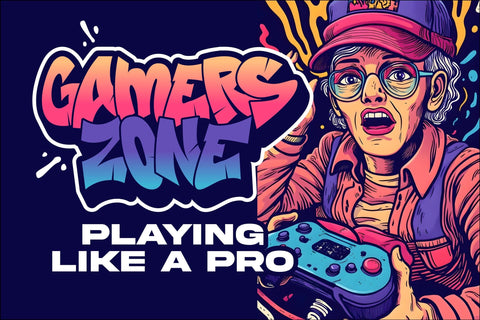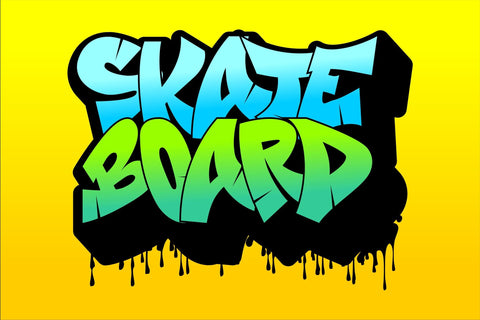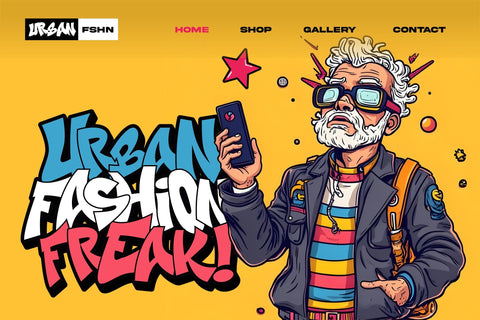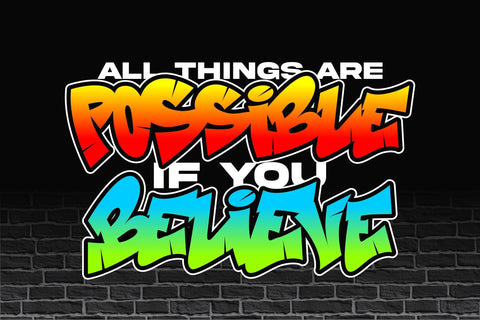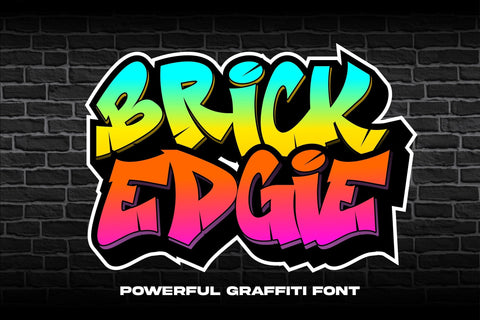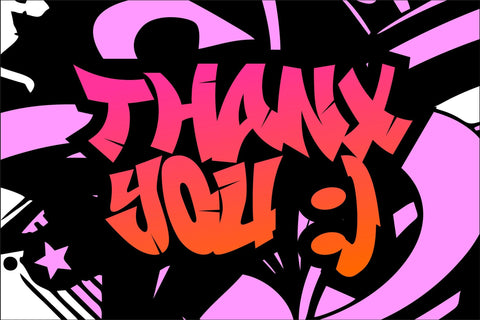
Brick Edgie - Powerful Graffiti Font
Brick Edgie is a bold and energetic graffiti font that embodies the raw spirit of urban art. With its sharp edges and striking design, this font is perfect for projects that demand an edgy, street-inspired look.
🎨 Urban Style: Brick Edgie captures the essence of graffiti culture, delivering a rebellious and powerful vibe that’s perfect for posters, branding, or any creative project with a bold attitude.
🧱 Powerful Presence: Its unique structure and dynamic strokes create a visual impact that commands attention, making your designs stand out effortlessly.
🔥 Versatile Design: Whether you’re working on digital art, murals, or branding, Brick Edgie adapts seamlessly to bring a modern, urban touch to your work.